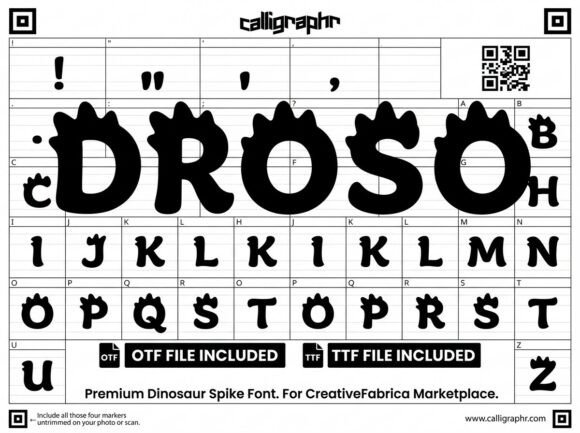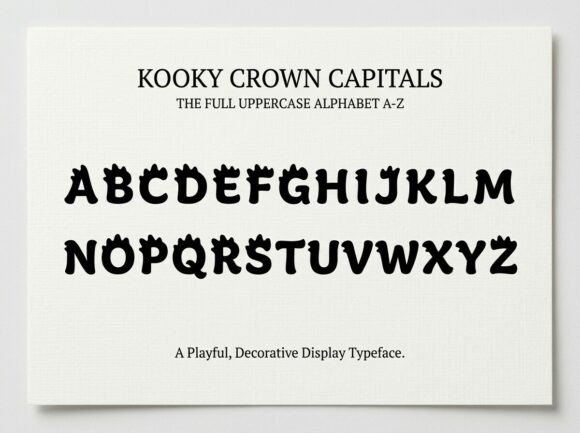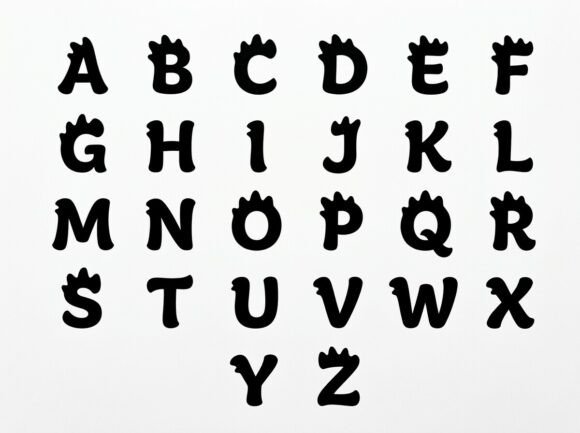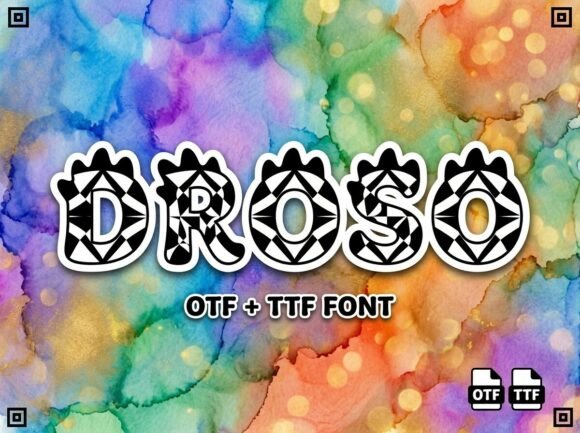
Unleash Prehistoric Wonder with Droso Font
Travel back to a time of primeval wonder with Droso, a premium display font designed to capture the playful energy of the prehistoric world. This bold, rounded typeface is perfect for designers and crafters looking to add a touch of dinosaur-inspired charm to their creative projects.
The Inspiration Behind Droso
Droso’s design is inspired by the iconic silhouettes of armored dinosaurs. The font’s heavy letterforms feature rhythmic “spikes” and soft, organic curves that evoke the prehistoric era. The result is a unique and eye-catching typeface that’s sure to transport your audience back in time.
Key Features of Droso Font
- Bold and Rounded Letterforms: Droso’s letterforms are designed to be bold and rounded, making them perfect for display purposes.
- Rhythmic “Spikes”: The font’s rhythmic “spikes” add a touch of playfulness and energy to the design.
- Soft and Organic Curves: The soft, organic curves of Droso’s letterforms mimic the silhouettes of armored dinosaurs.
- Approachable Visual Weight: Droso’s visual weight is approachable and friendly, making it perfect for children’s event branding, toy packaging, and youth apparel.
- Bouncy Baseline: The font’s bouncy baseline adds to its playful and energetic aesthetic.
Use Cases for Droso Font
Droso is an exceptional choice for a variety of design projects, including:
- Children’s Event Branding: Droso’s playful and energetic design makes it perfect for children’s event branding, such as dinosaur-themed birthday parties or museum exhibits.
- Toy Packaging: The font’s bold and rounded letterforms make it a great choice for toy packaging, especially for dinosaur-themed toys.
- Museum Exhibit Headers: Droso’s prehistoric inspiration makes it a natural fit for museum exhibit headers, especially for exhibits featuring dinosaurs.
- Adventurous Youth Apparel: The font’s friendly and approachable design makes it perfect for adventurous youth apparel, such as t-shirts and hoodies.
Why Choose Droso Font?
Droso delivers a sense of handcrafted whimsy and professional, dinosaur-inspired charm to your creative identity. With Droso, you can:
- Add a Touch of Personality: Droso’s unique design adds a touch of personality to your creative projects.
- Stand Out from the Crowd: The font’s bold and eye-catching design helps you stand out from the crowd.
- Create Engaging Designs: Droso’s playful and energetic design helps create engaging and interactive designs.
Droso font is a premium display font that’s perfect for designers and crafters looking to add a touch of prehistoric wonder to their creative projects. With its bold and rounded letterforms, rhythmic “spikes,” and soft, organic curves, Droso is sure to transport your audience back in time. Whether you’re working on children’s event branding, toy packaging, museum exhibit headers, or adventurous youth apparel, Droso is an exceptional choice.